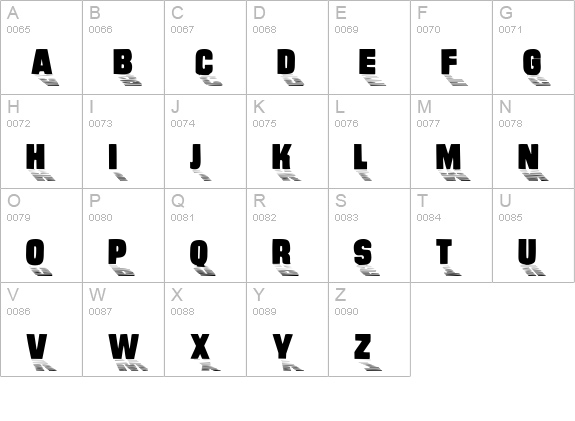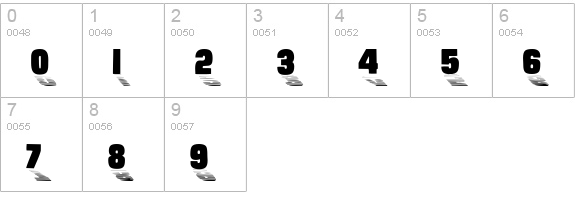
SundownDisplayCaps Font Details
SundownDisplayCaps font is a stunning display typeface that exudes elegance and sophistication. With its unique design and intricate details, this font is perfect for adding a touch of luxury to your projects. The uppercase letters are bold and eye-catching, making a strong statement in any design. What makes SundownDisplayCaps font even more appealing is that it is available for free download at FontsMarket.com. This means you can easily access this beautiful font and use it in your creative endeavors without any cost. Whether you're working on branding, packaging, invitations, or any other design project, SundownDisplayCaps font will elevate your work to the next level. Download it today and let your creativity shine with this exquisite typeface.